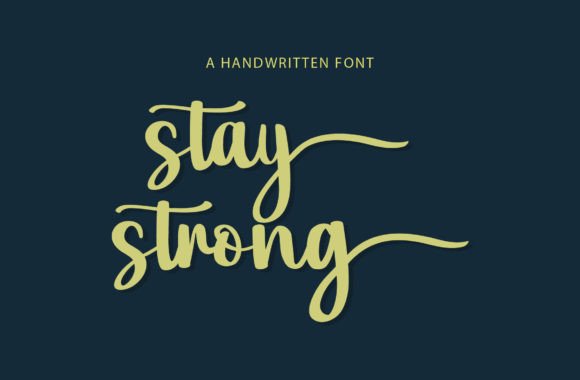
Introducing Stay Strong Font, the ultimate choice for truck lettering enthusiasts! Crafted by the talented team at Fontysia, this script font is here to revolutionize your design projects with its fun and elegant style. With its unique charm and contemporary appeal, Stay Strong Font will breathe life into your quotes, cards, and any other creative endeavor you embark on.
Are you tired of the same old fonts that lack personality? Look no further! Stay Strong Font will add that much-needed freshness to your designs, infusing them with a modern vibe that is sure to captivate your audience. Its handcrafted authenticity will make your truck lettering stand out from the crowd, leaving a lasting impression on anyone who lays eyes on it.
But what makes Stay Strong Font truly exceptional? Its versatility! Whether you're working on a bold and impactful project or aiming for a delicate and sophisticated look, this font has got you covered. Its graceful strokes and perfectly balanced curves will adapt seamlessly to any theme or concept, allowing you to unleash your creativity without limitations.
But it doesn't end there. Stay Strong Font is not just visually appealing; it also evokes a range of emotions that will resonate with your audience. From joy and excitement to nostalgia and warmth, this font effortlessly captures the essence of your message, ensuring a deep connection with your readers.